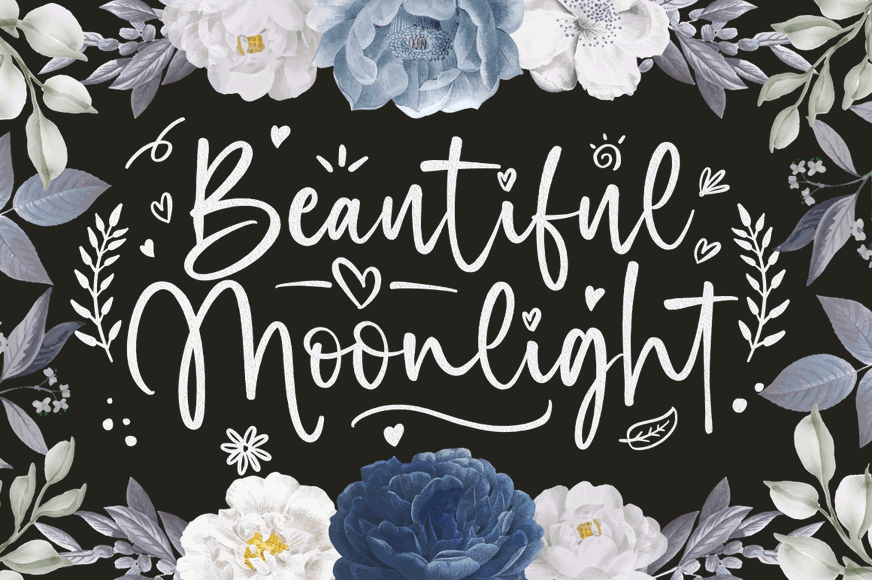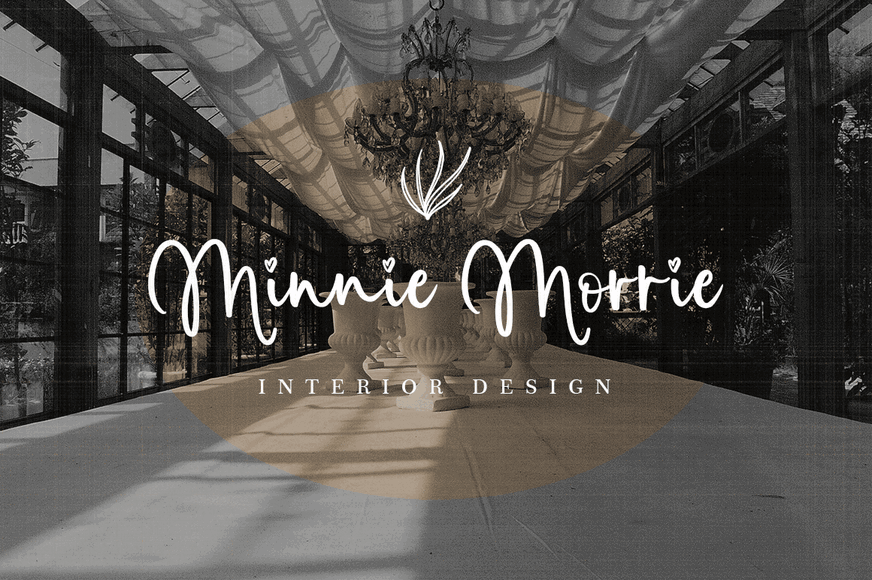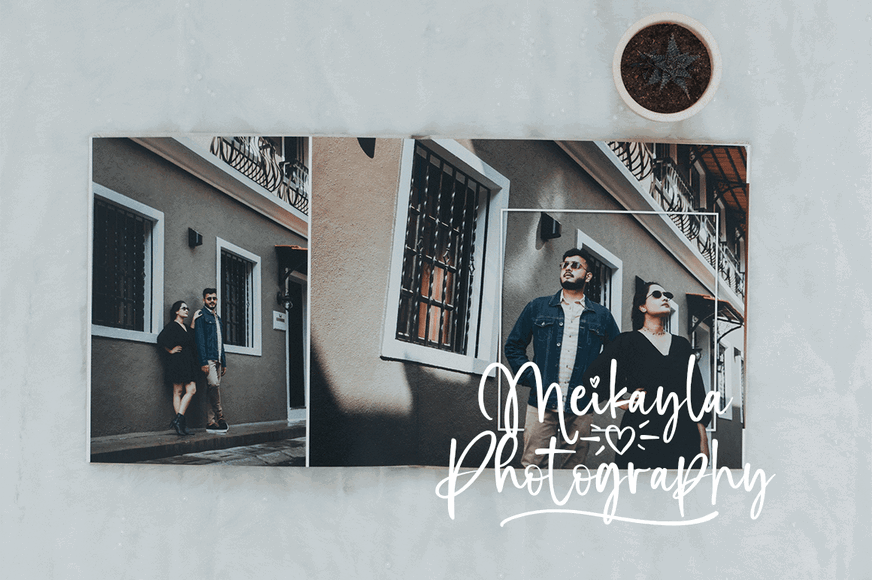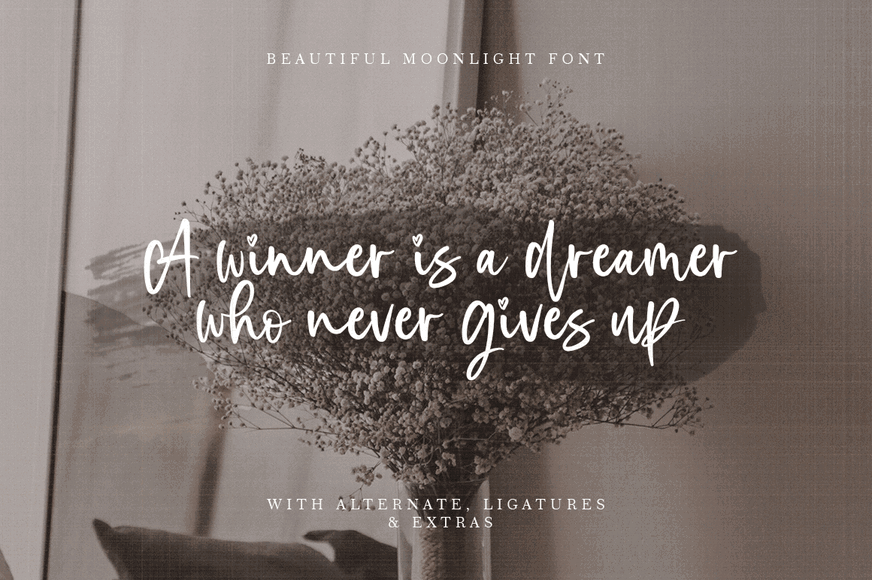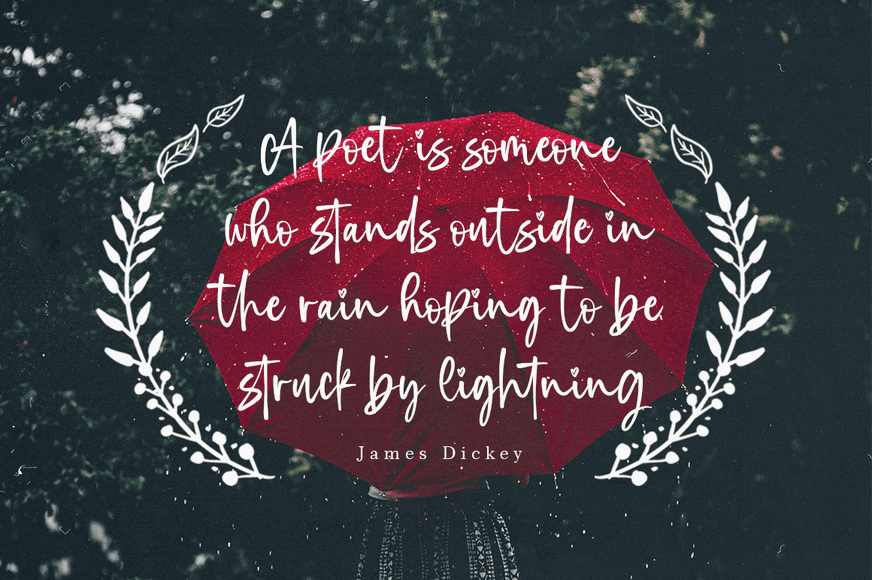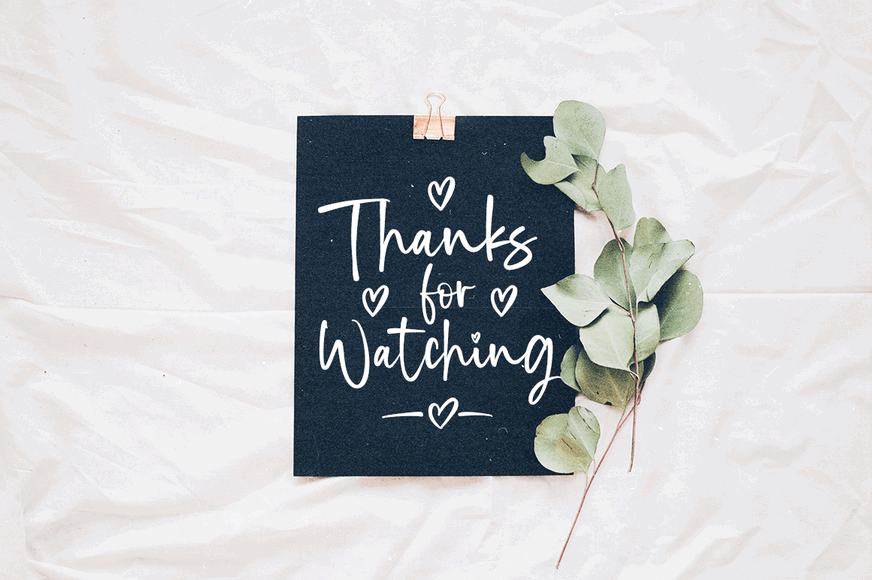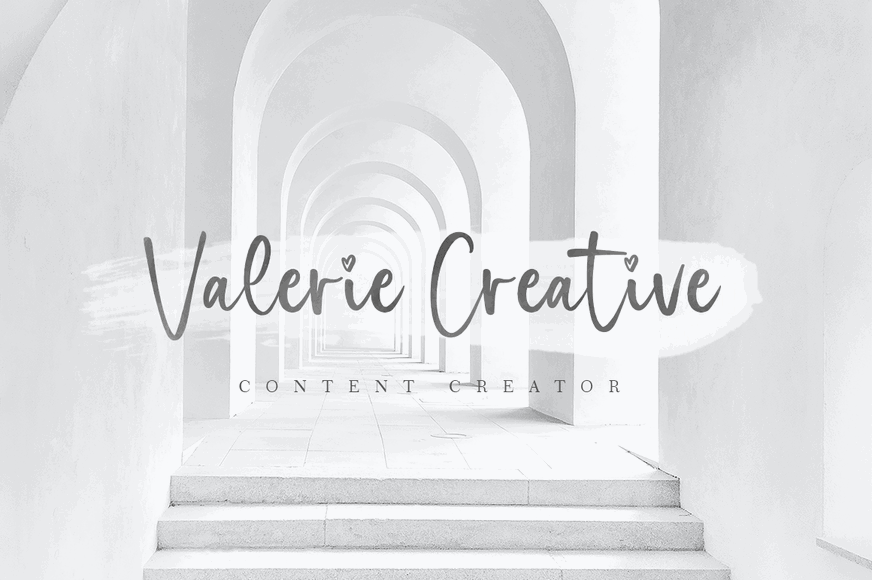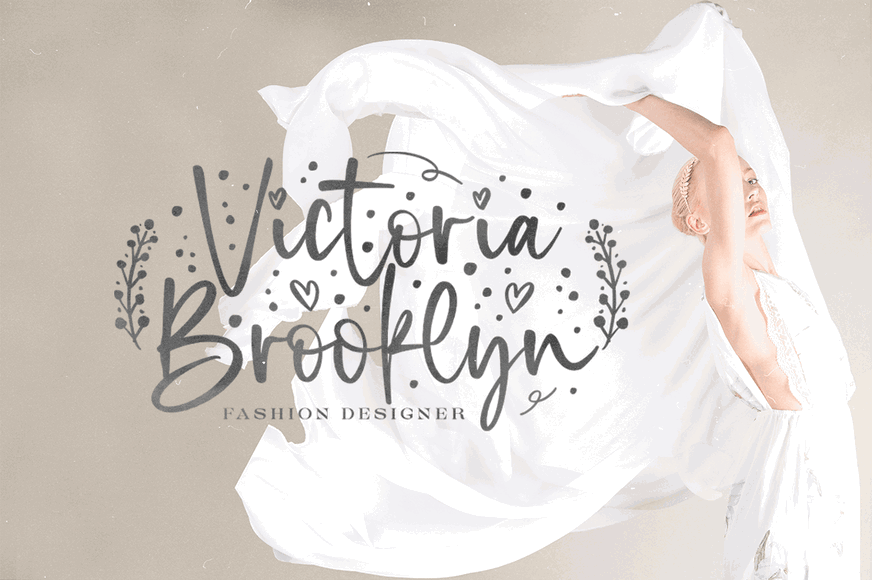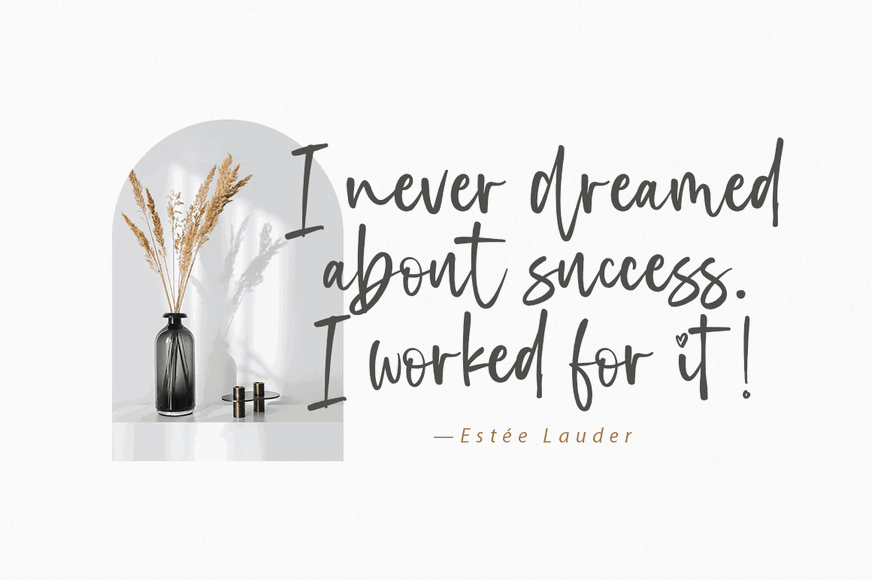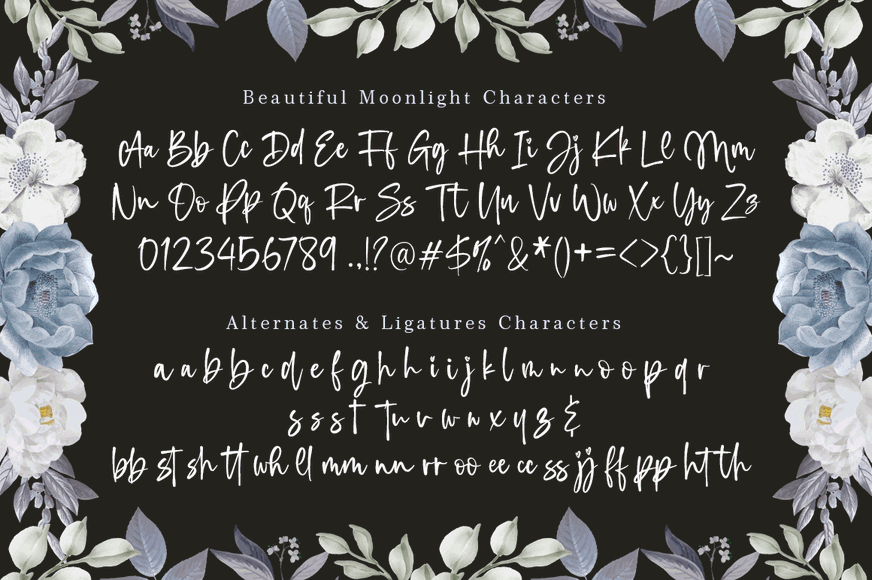
Beautiful Moonlight
Font Family by Fargun Studio
Beautiful Moonlight is handwritten stylish copperplate calligraphy fonts, combines from copperplate to contemporary typeface with a dancing baseline, classic and elegant touch. Can be used for various purposes. such as headings, signature, logos, wedding invitation, t-shirt, letterhead, signage, lable, news, posters, badges etc.